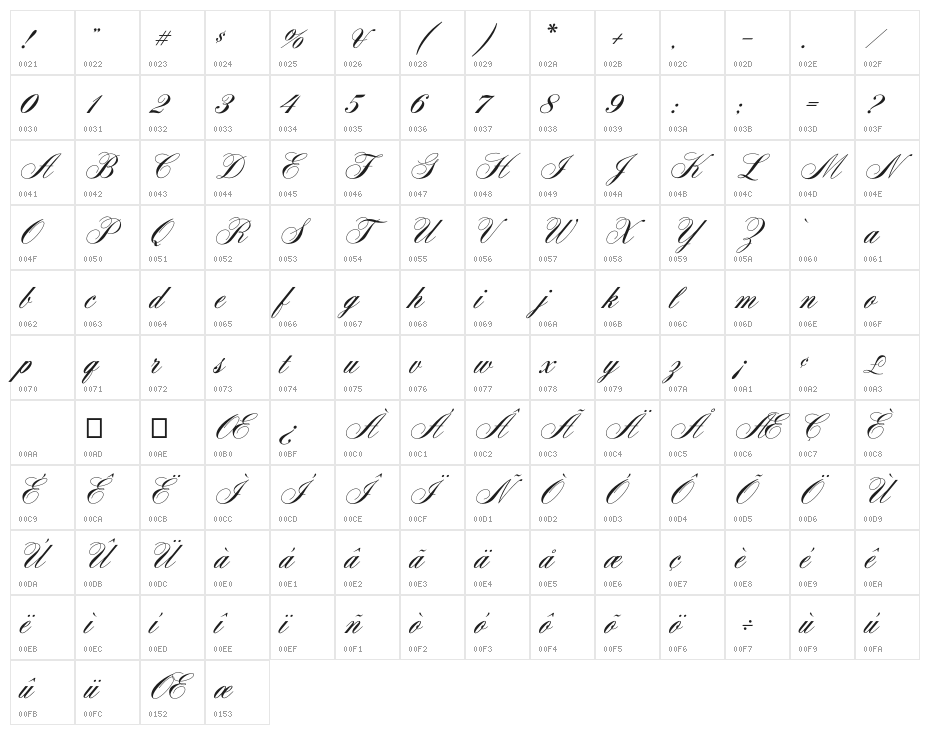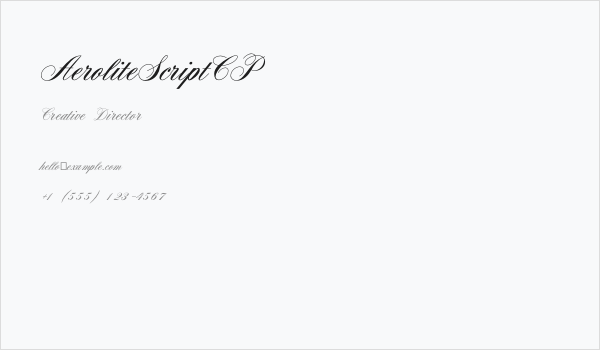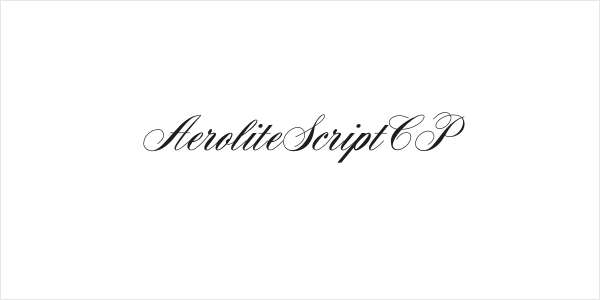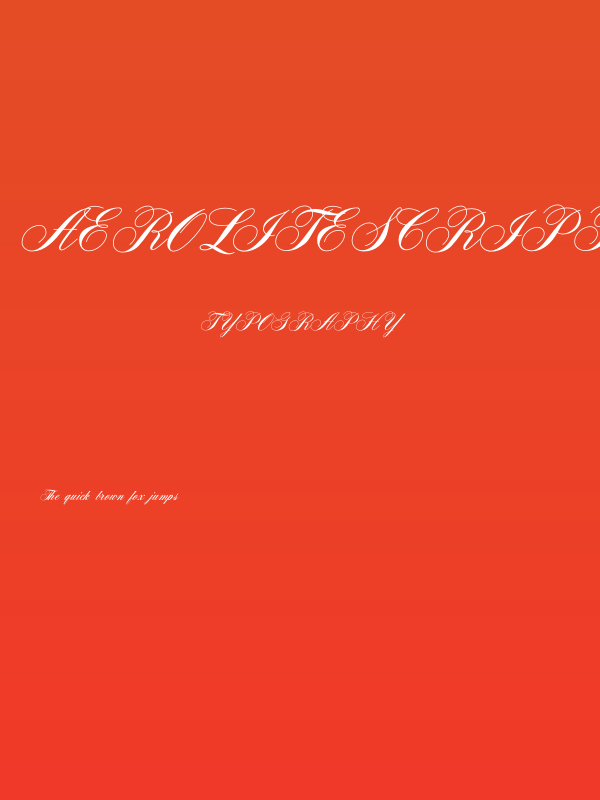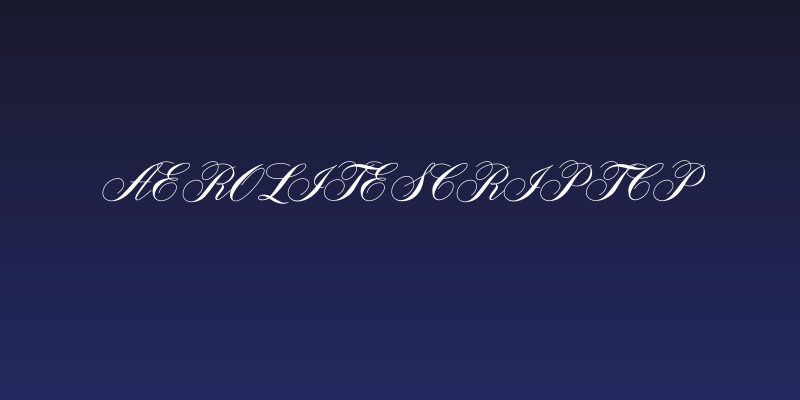
AeroliteScriptCP Font
| Stile generale | Elegant, Decorative |
| Caso d'uso | Invitations, Branding, Signage |
| Progetti proposti | Ideal for wedding invitations, luxury branding, elegant signage, and formal event programs. |